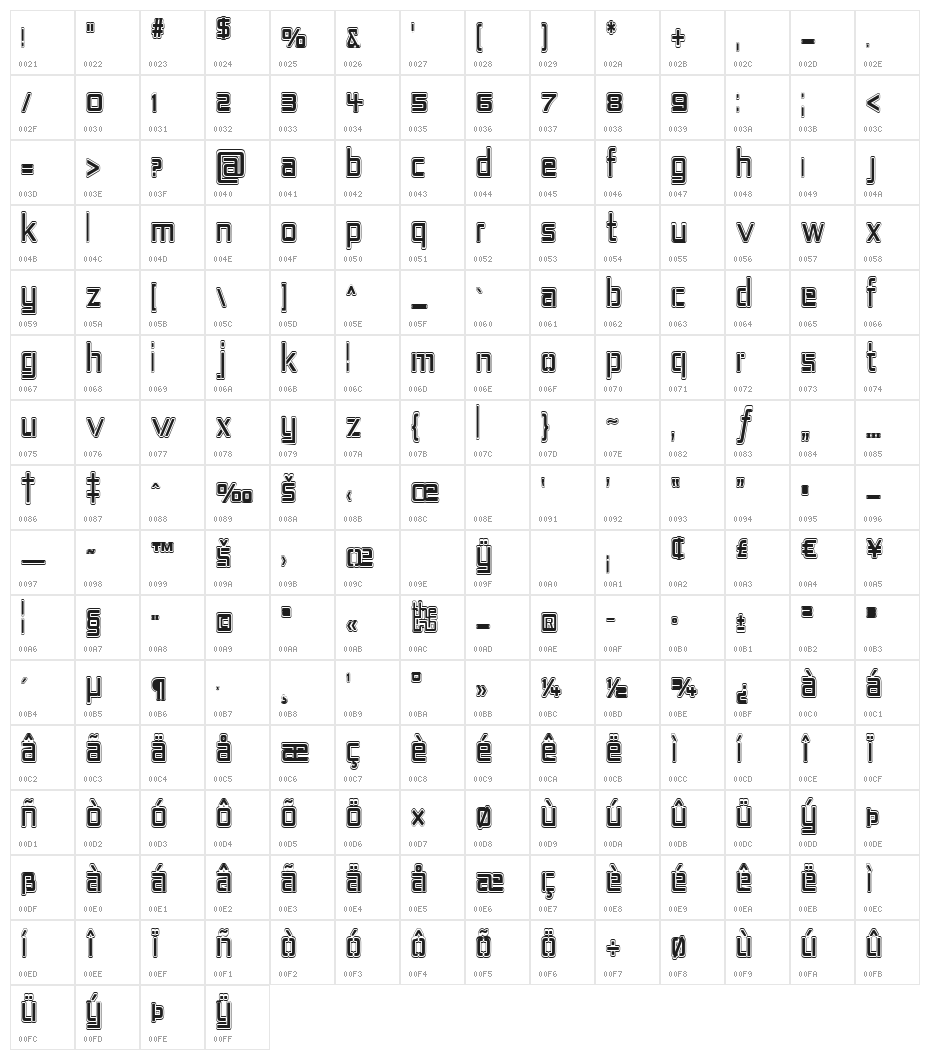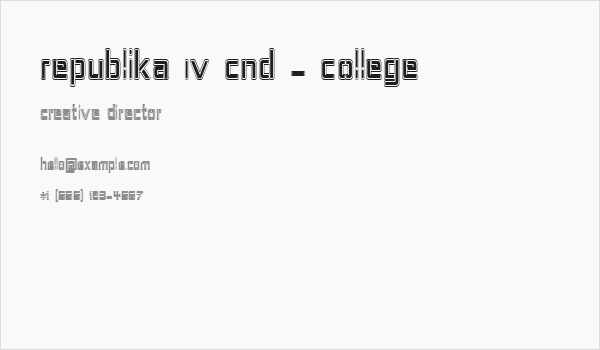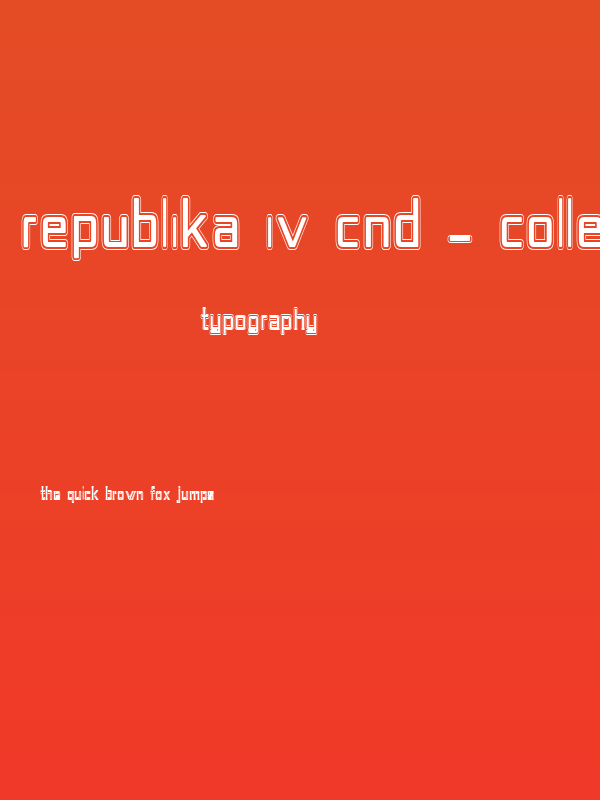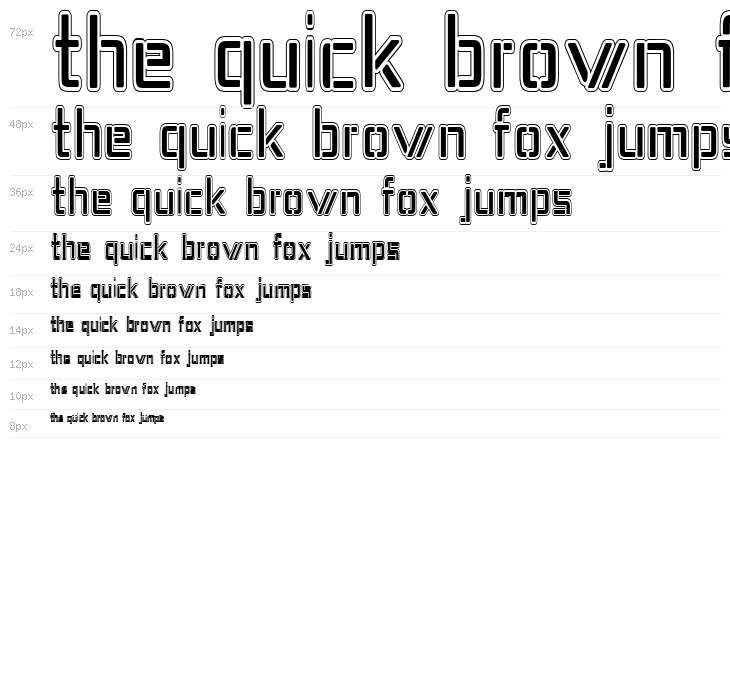
Republika IV Cnd - College Font
Republika IV Cnd - College Description
This font features a bold, geometric design with a distinct outline style that gives it a modern and futuristic appearance. The characters are constructed with clean, straight lines and sharp angles, creating a sense of precision and clarity. The uppercase and lowercase letters maintain a consistent height, contributing to a uniform and cohesive look. The numbers and special characters are designed to match the overall aesthetic, ensuring a harmonious appearance across all text. The outlined nature of the font adds a unique dimension, making it stand out in various design contexts.
Proposed ProjectsIdeal for branding, posters, headlines, and any design project that requires a modern and eye-catching typeface.